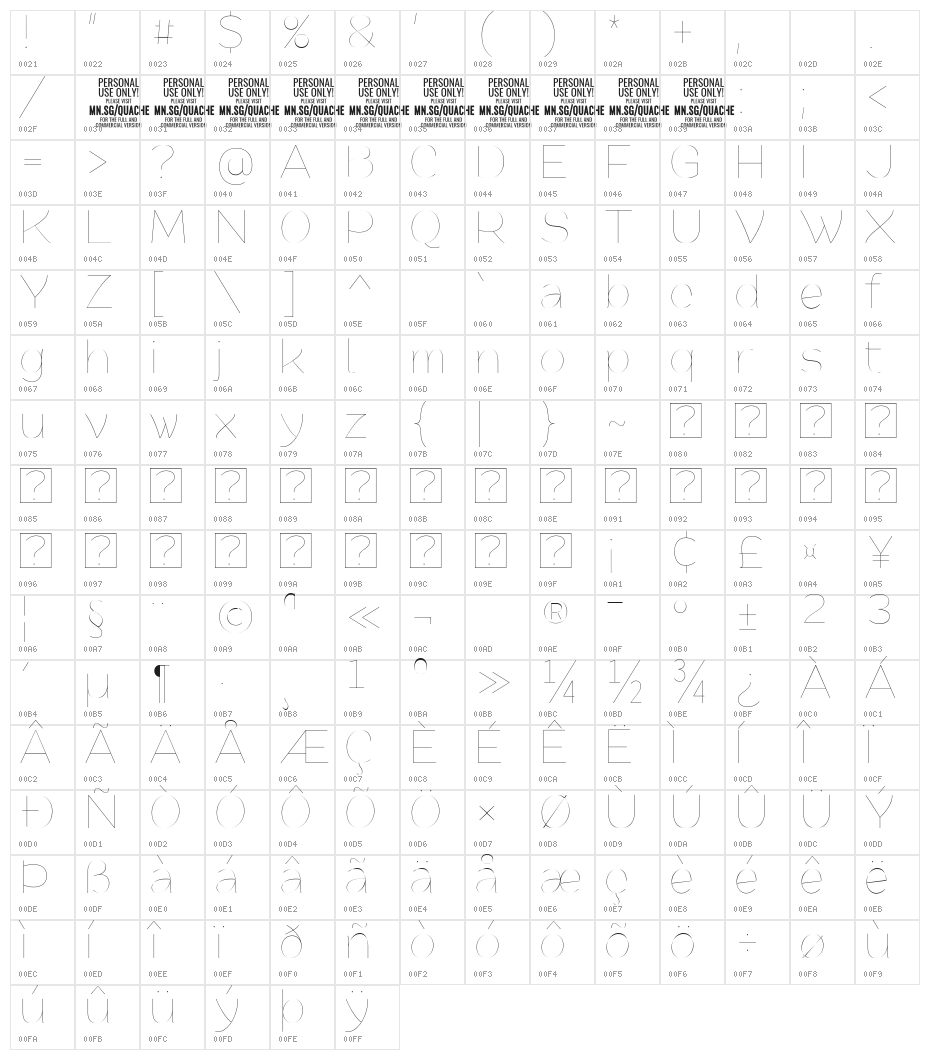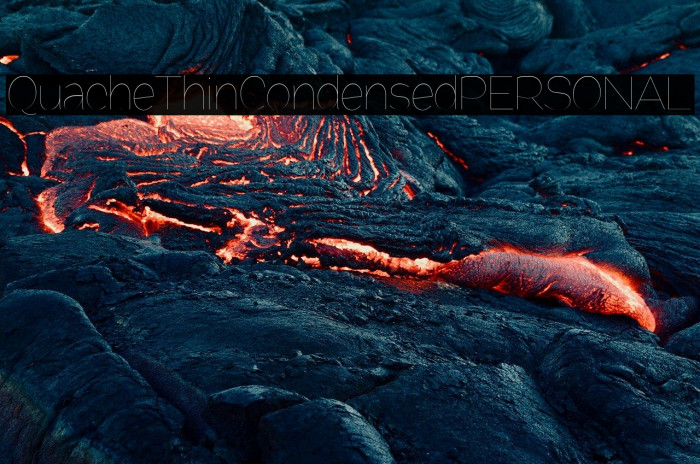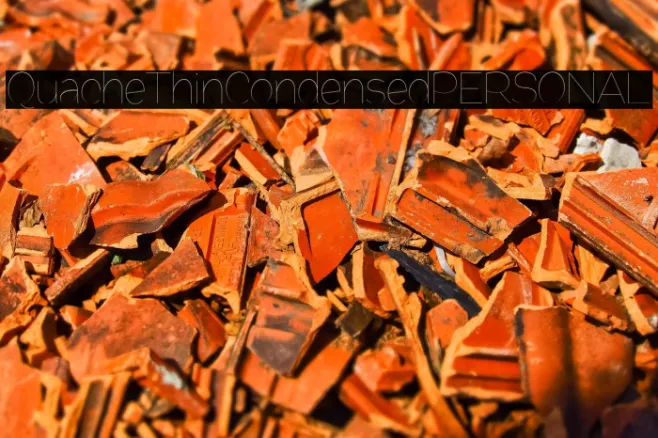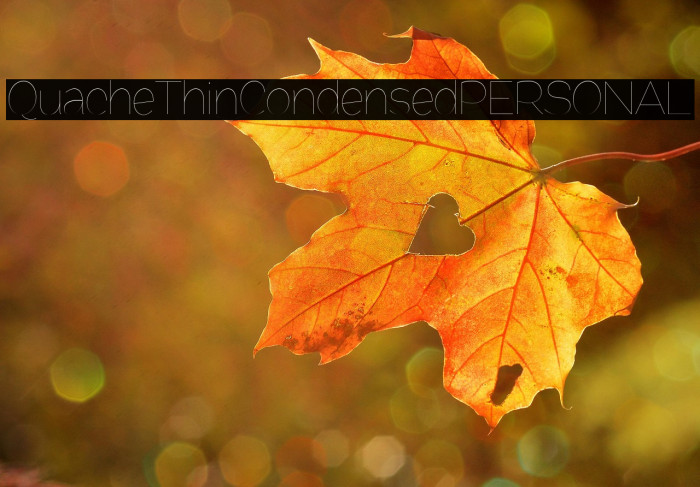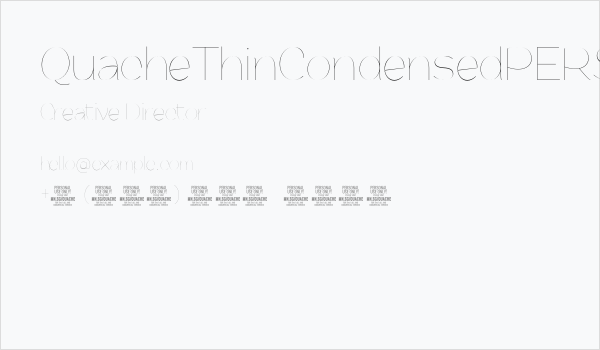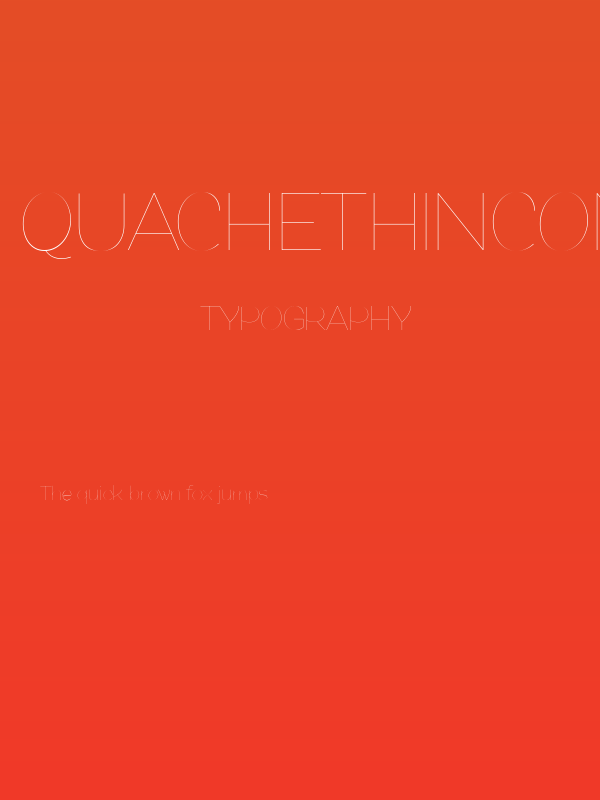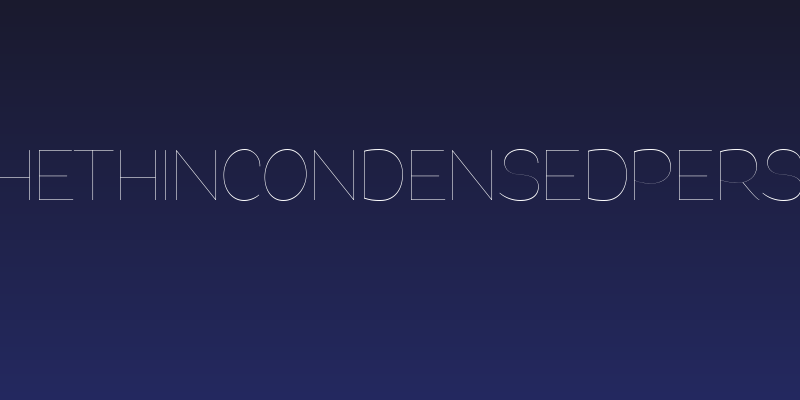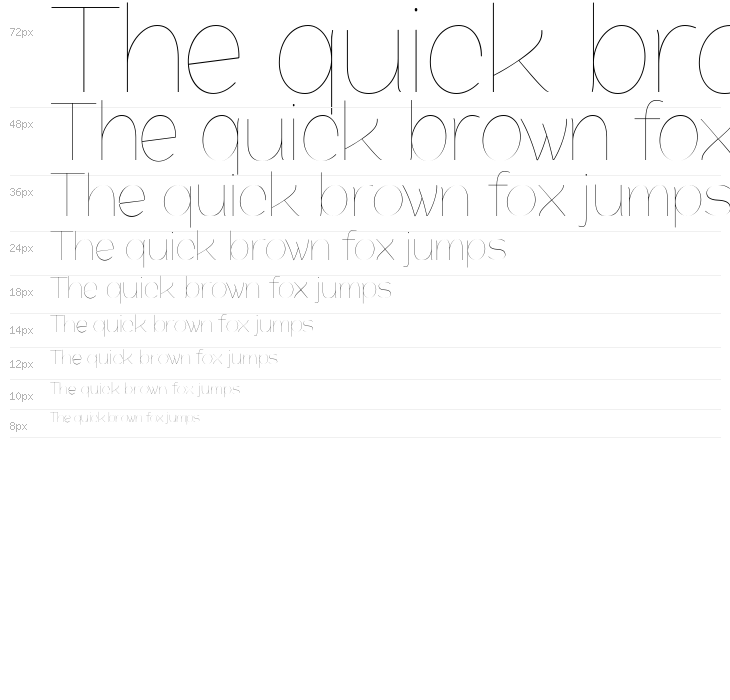
QuacheThinCondensedPERSONAL Font
QuacheThinCondensedPERSONAL Description
This font features a sleek and modern design with thin, elongated characters that convey a sense of elegance and sophistication. The uppercase and lowercase letters maintain a consistent height, contributing to a uniform appearance. The strokes are extremely thin, giving it a delicate and airy feel, while the condensed width adds a contemporary touch. The font's minimalistic style is accentuated by its clean lines and absence of serifs, making it suitable for modern and stylish applications. The spacing between characters is tight, enhancing its compact look. This font is ideal for projects that require a refined and understated aesthetic.
| Proposed Projects | Ideal for fashion magazines, luxury branding, minimalist posters, and modern web design. |